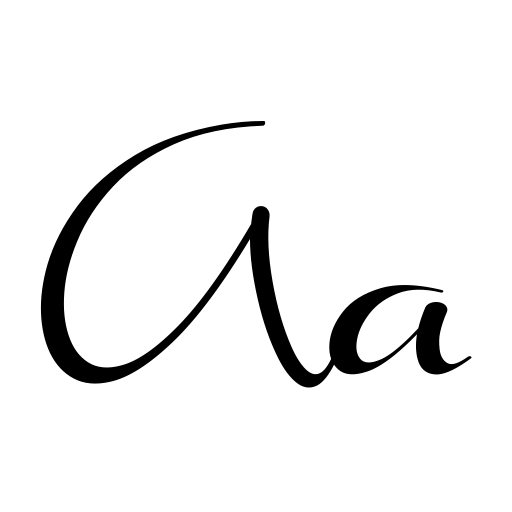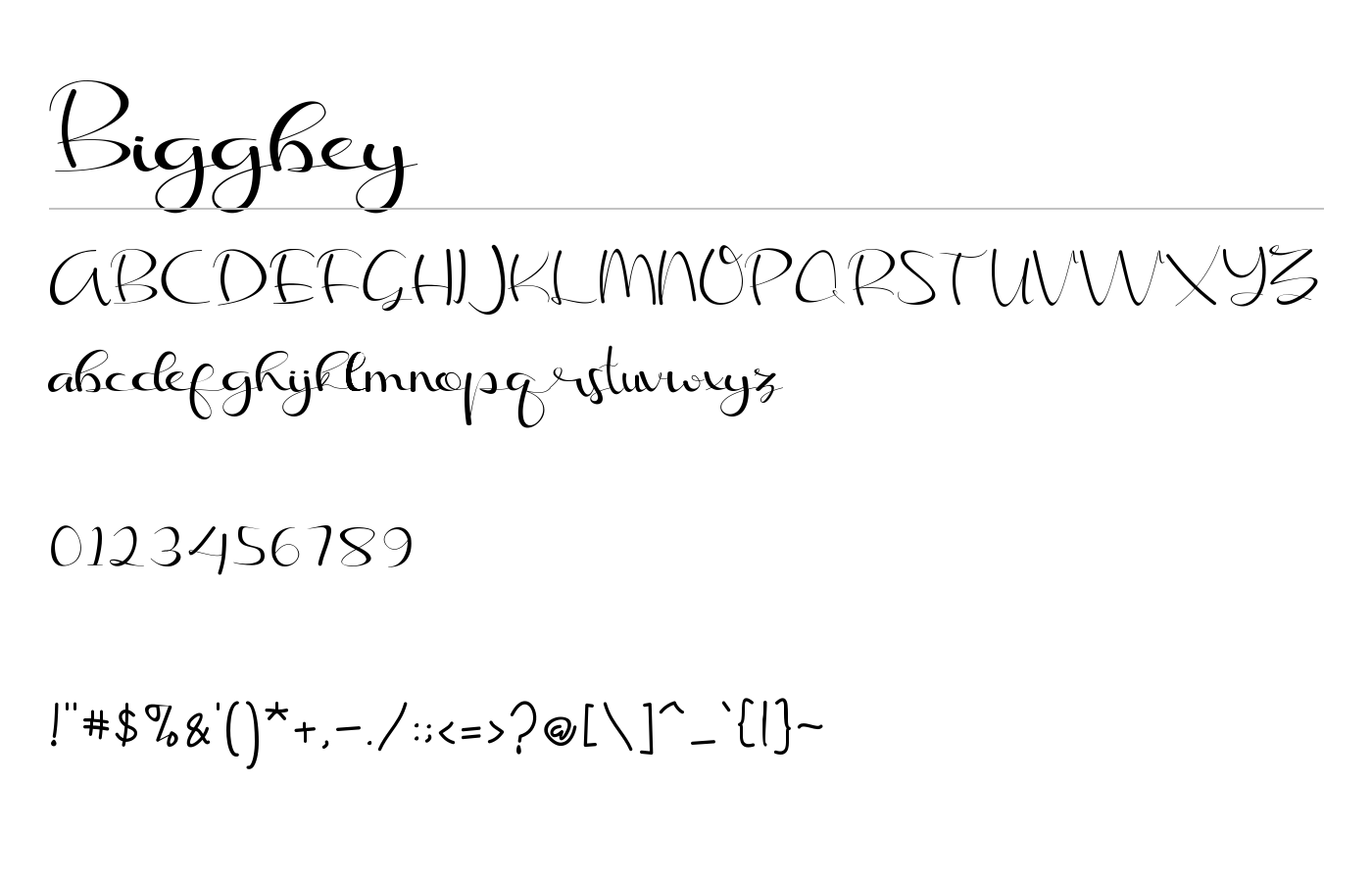
Biggbey is a graceful, handwritten script font characterized by its delicate, flowing strokes and a light, airy feel. Its mix of playful curves and slightly irregular letterforms lends an informal yet charming personality, making it perfect for creative designs such as invitations, branding, and casual editorial content. The font’s elegant style works well when you want a personal, artistic touch without losing readability.
Biggbey Font
About Biggbey Font
| Font family | Biggbey Font |
| Designer | Tiny Hand Letter |